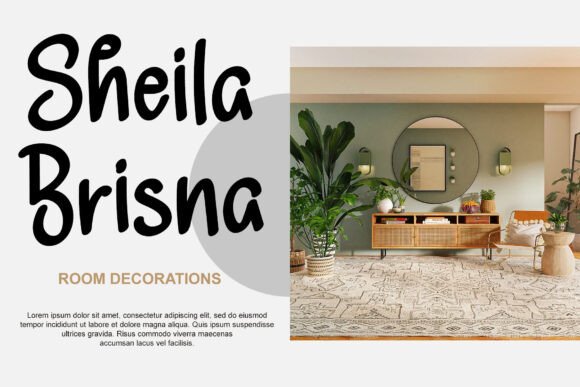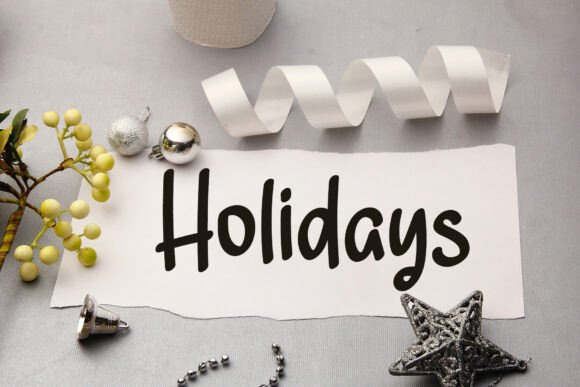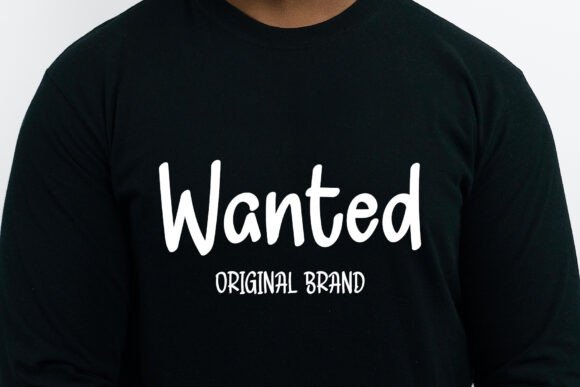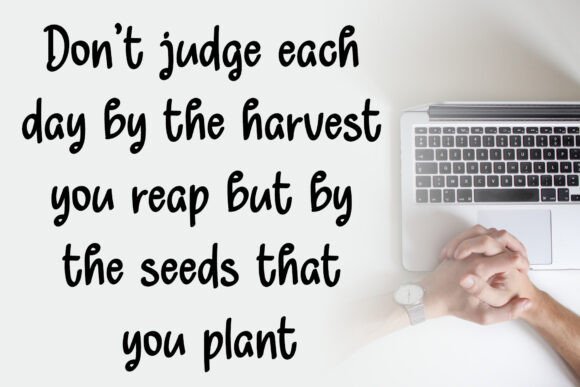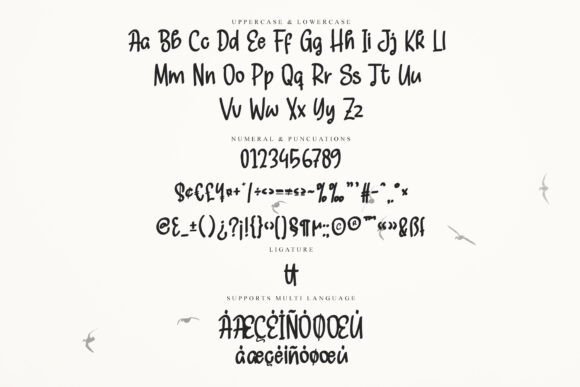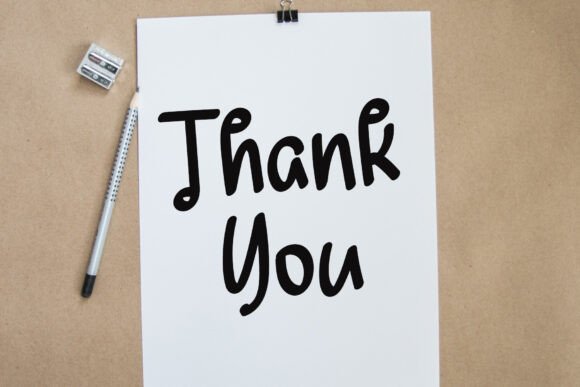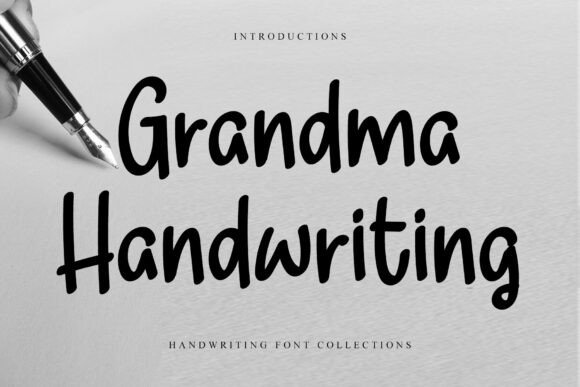
Introducing Grandma Handwriting Font: A Simple yet Versatile Design Solution
When it comes to choosing the right font for a design project, the options can be overwhelming. However, if you’re looking for a font that embodies simplicity, readability, and versatility, look no further than the Grandma Handwriting Font. This straightforward and minimalist sans-serif font has been gaining popularity among designers and crafters alike, and for good reason.
The Characteristics of Grandma Handwriting Font
Grandma Handwriting Font is a simple handwritten font that boasts clean lines and unadorned letterforms. Its minimalist approach makes it an excellent choice for designers who want to convey a sense of elegance and sophistication without being too flashy. The font’s simplicity also ensures that it remains highly readable, even at smaller sizes, making it perfect for body text, captions, and other applications where legibility is crucial.
One of the standout features of Grandma Handwriting Font is its versatility. This font can be used for a wide range of design projects, from branding and editorial design to web design and crafting. Whether you’re creating a logo, brochure, website, or handmade card, Grandma Handwriting Font is an excellent choice. Its neutral tone and lack of embellishments make it easy to pair with other design elements, ensuring that your message takes center stage.
Branding and Identity
When it comes to branding, having a consistent visual identity is essential. Grandma Handwriting Font can help you achieve this goal. Its simple yet distinctive letterforms make it an excellent choice for logos, business cards, and other marketing materials. The font’s elegance and sophistication also make it suitable for high-end brands, while its approachability and friendliness ensure that it’s accessible to a wide range of audiences.
Editorial Design and Publishing
In the world of editorial design, typography plays a critical role in enhancing the reader experience. Grandma Handwriting Font is an excellent choice for articles, blog posts, and other written content. Its readability and simplicity make it easy to get lost in the text, while its elegance ensures that the content feels premium and high-quality.
Web Design and Digital Applications
In the digital realm, Grandma Handwriting Font shines just as brightly. Its clean lines and simple letterforms ensure that it remains legible on a wide range of devices and screen sizes. Whether you’re designing a website, mobile app, or social media graphics, this font is an excellent choice. Its versatility also makes it suitable for a range of digital applications, from email newsletters to e-books and online courses.
Crafting and DIY Projects
Grandma Handwriting Font isn’t just limited to digital design. Its simplicity and elegance make it an excellent choice for crafting and DIY projects, such as handmade cards, scrapbooking, and journaling. The font’s friendly and approachable tone also makes it perfect for projects that require a personal touch.
Why Choose Grandma Handwriting Font?
So why should you choose Grandma Handwriting Font for your next design project? Here are just a few compelling reasons:
- Simplicity: Grandma Handwriting Font boasts clean lines and unadorned letterforms, making it easy to read and versatile.
- Readability: The font’s simplicity ensures that it remains highly readable, even at smaller sizes.
- Elegance: Grandma Handwriting Font’s minimalist approach makes it an excellent choice for designs that require a touch of sophistication.
- Versatility: This font can be used for a wide range of design projects, from branding and editorial design to web design and crafting.
In conclusion, Grandma Handwriting Font is a simple yet versatile design solution that’s perfect for designers and crafters alike. Its simplicity, readability, elegance, and versatility make it an excellent choice for a wide range of design projects. Whether you’re looking to create a logo, brochure, website, or handmade card, Grandma Handwriting Font is an excellent choice. So why not give it a try and see how this font can elevate your design?